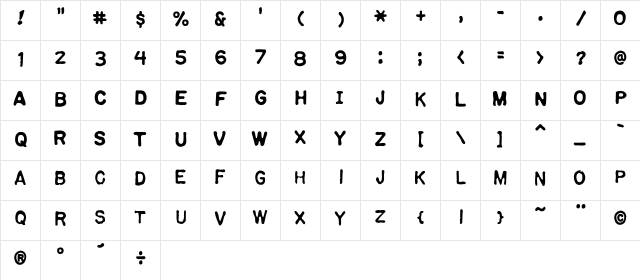
CCRigorMortis Regular
Design Context for CCRigorMortis Typeface
CCRigorMortis takes a measured approach to typography — its balanced proportions and neutral character make it a reliable workhorse for both digital and print work.